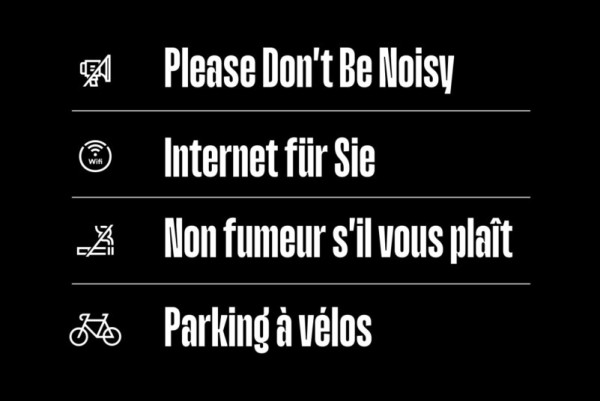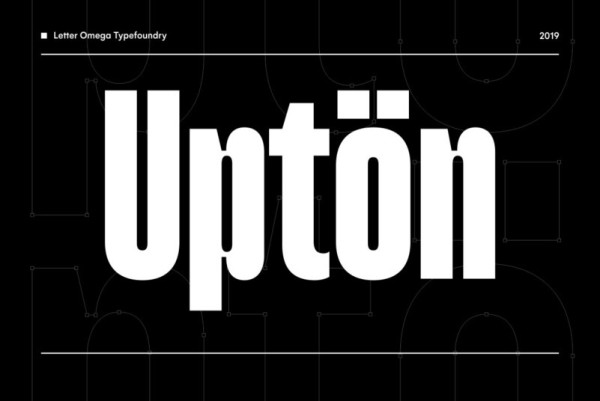
Upton Font is a modern and condensed sans serif. The initial inspiration for its design came from lettering Wim Crouwel created for a poster design. It also takes some cues from neutral grotesks like Helvetica and Akzidenz. Because of its narrow letterforms, it is best applied to headlines and poster-sized typography. Upton’s italics were designed with high-quality compensation for all circles and strokes.
Upton ships in two different formats. Depending on your preference, you can install the typeface as two Variable Fonts or use the family’s 14 static OpenType font files instead. Those weights run from Extralight to Extrabold. While the static-format fonts offer a good intermediary-step selection, users who install the Variable Font have vastly greater control over their text’s stroke width. The weight axes in Upton’s Variable Fonts allow users to differentiate between almost 1,000 possible font weights. That enables you to fine-tune your text’s exact appearance on-screen or in print. In its fonts, Upton has several ligatures.
That includes optional “discretionary ligatures,” which bring a unique tone to display usage. For instance, the fonts include optional ligatures for the letter combinations “E-T”, “F-l”, “L-E-T-T-E”, “L-E-T-T”, “L-E-L-O”, “L-U”, “i-j”. and “m-m”. There are also many alternate glyphs. Stylistic Set 1 substitutes in new forms for “G”, “R”, “a”, “f”, “g”, “i”, “r”, “t”, and “y”. Six more Stylistic Sets have alternates for the “æ”, “g”, “k”, “o”, “K”, “O”, and “Q”. Additional OpenType features activate other useful features, such as fractions, numbers in circles, or symbols.